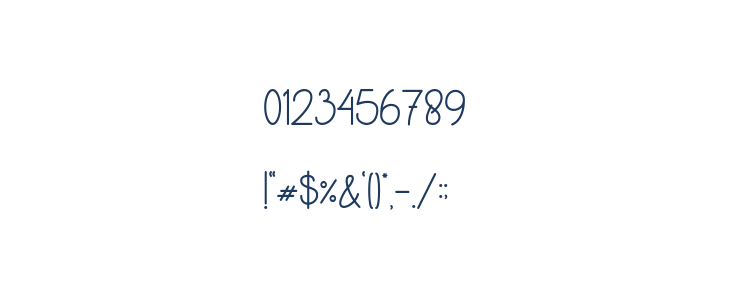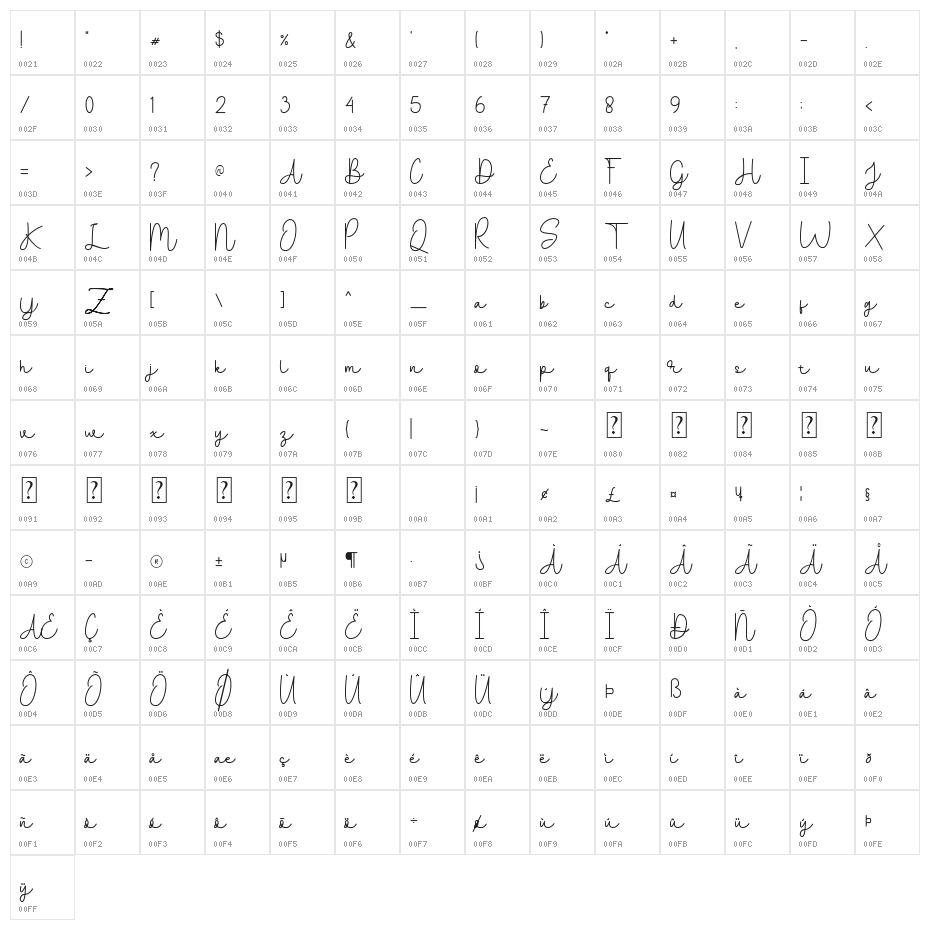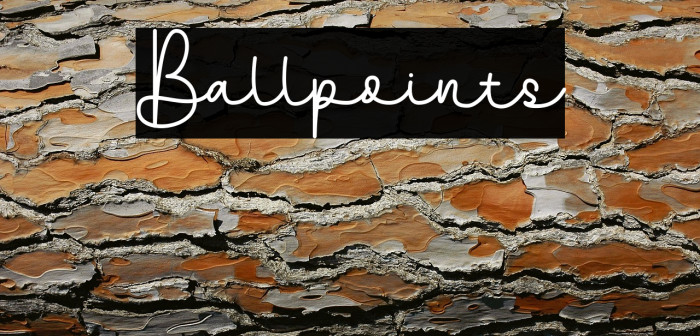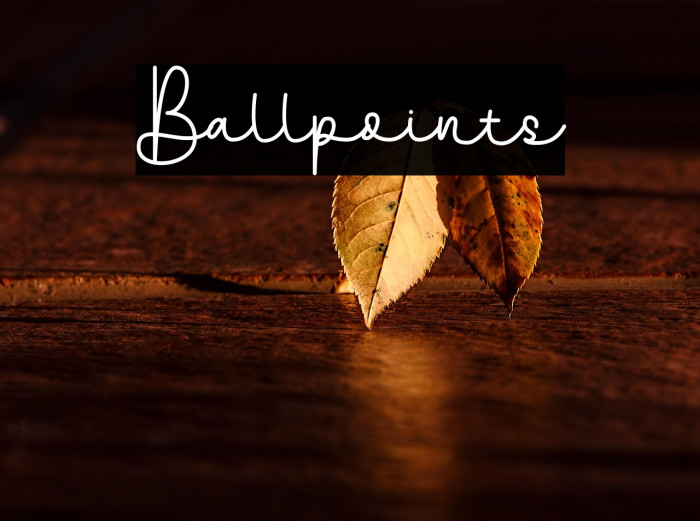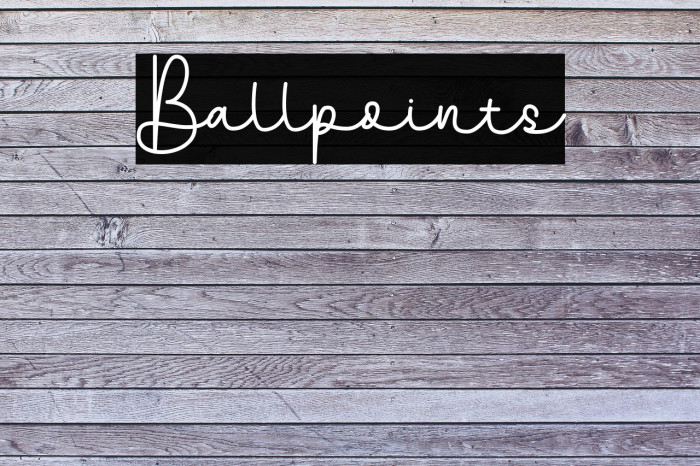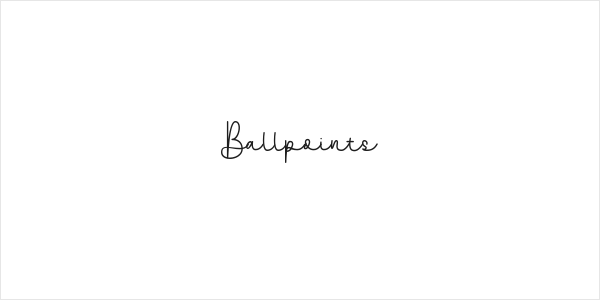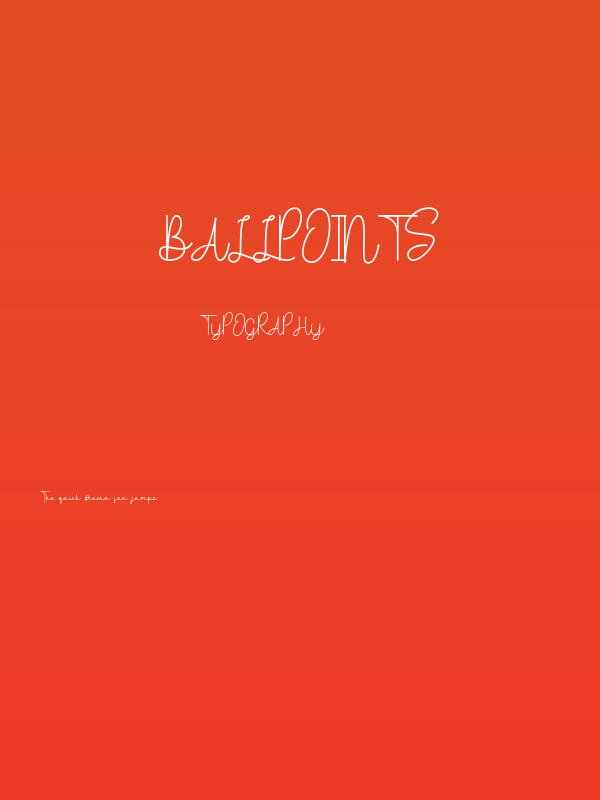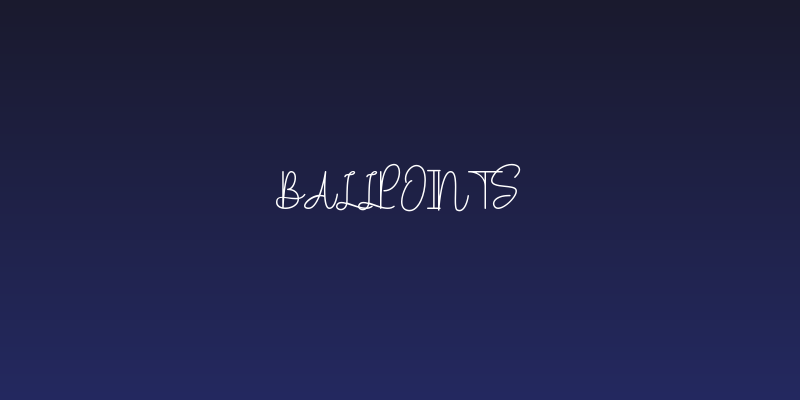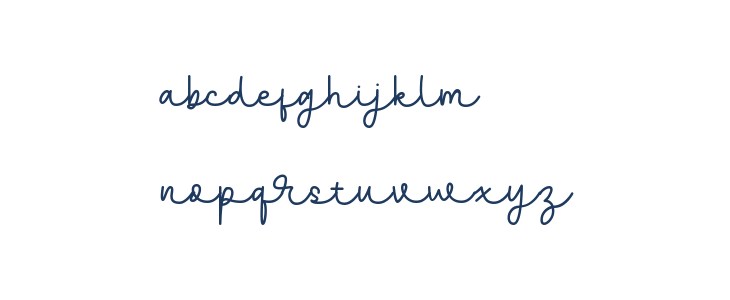
Ballpoints Font
Ballpoints Description
This font features a playful, handwritten style with a smooth, flowing script. The uppercase letters are characterized by their tall, narrow forms and distinctive loops, giving them a whimsical and artistic appearance. The lowercase letters maintain a consistent flow, with rounded edges and a casual, friendly demeanor. Numbers and special characters are designed to match the overall aesthetic, ensuring a cohesive look across all text. The font's informal style makes it ideal for projects that require a personal touch, such as invitations, greeting cards, and creative branding.